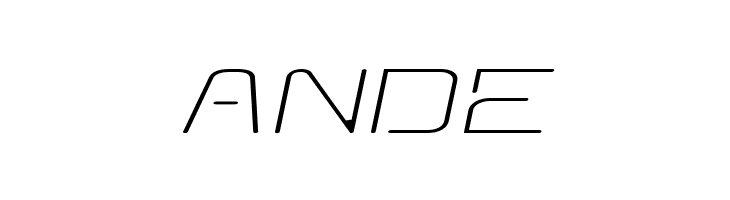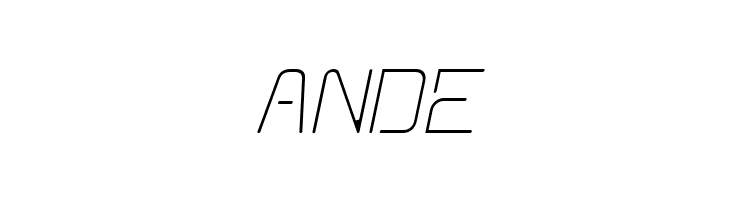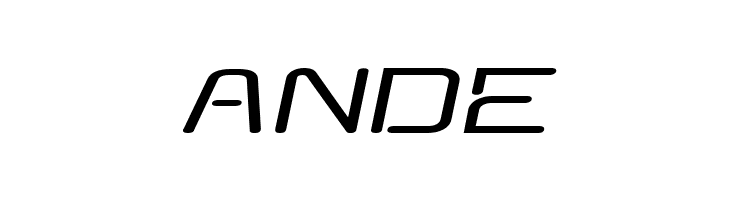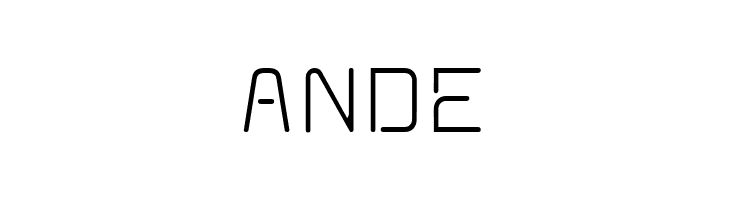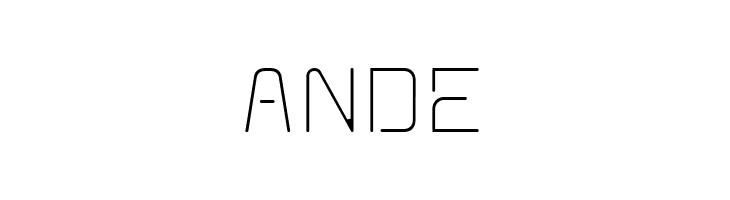
A modern, geometric font with thin, uniform lines and a minimalist style.
A modern, thin, and expanded font with geometric precision and minimalistic curves.
A sleek, modern, thin oblique font with a futuristic aesthetic.
A futuristic, geometric sans-serif font with rounded edges and a modern aesthetic.
A thin, geometric font with a modern, futuristic design.
A futuristic, expanded, bold oblique font with rounded edges and smooth curves.
A modern, thin, expanded oblique font with a futuristic and geometric style.
A sleek, modern font with geometric lines and rounded edges.
A graceful and fluid handwritten script font with elegant, flowing letters.
An elegant serif font with tall, slender letterforms and sharp serifs.
A bold, vintage-style font with stencil-like cut-out elements.
A bold, high-contrast decorative font with dramatic serifs.
A bold, flowing script font with elegant, cursive letterforms and dynamic flourishes.
A playful handwritten font with fluid, dynamic strokes and a casual style.
A bold, geometric outline font with a modern, futuristic style.
A bold, geometric, double-line font with a modern and futuristic look.
A bold, modern font with geometric shapes and consistent width.
A bold, geometric font with rounded edges and a modern style.
A bold, geometric font with a double-line outline for a modern look.
A bold, geometric font with a double-line outline and modern style.
A bold, Gothic-inspired font with intricate, angular details.
A bold, Gothic-inspired font with sharp, angular lines and ornate detailing.
An elegant script font with high contrast and decorative flourishes.
An elegant script font with flowing, interconnected strokes and luxurious flourishes.
An elegant script font with flowing, cursive strokes and high contrast.
An elegant script font with flowing, interconnected letters and decorative swashes.
A playful, rounded font with a hand-drawn appearance.
A playful, rounded font with bold, smooth curves.
A bold, elegant serif font with a classic and timeless style.
A bold, italic serif font with a classic yet modern appeal.
A classic serif italic font with smooth, flowing curves and refined elegance.
A classic serif font with elegant strokes and moderate contrast, ideal for versatile use.
An elegant script font with a classic, calligraphic style.
An elegant, flowing script font with moderate contrast and dynamic slant.
An elegant, italic script font with flowing, cursive characters.